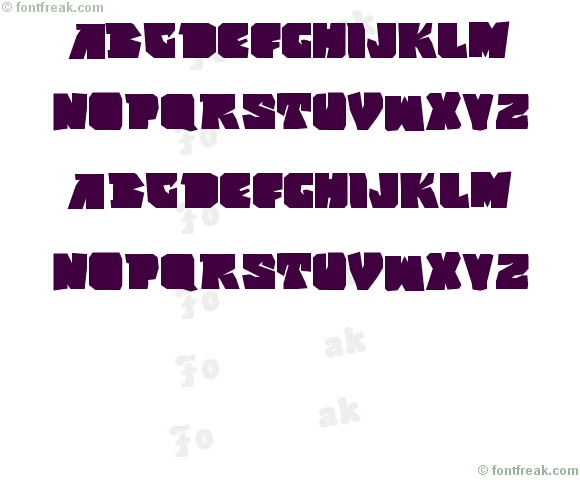
vtks super
The vtks super font, designed by Douglas Vitkauskas, is a striking display typeface that stands out with its bold and modern aesthetic. This sans-serif font features a unique geometric structure, characterized by thick strokes and minimal contrast, which lends it a contemporary feel. The uniform spacing between characters enhances readability, making it suitable for a variety of applications. Its decorative elements add a touch of personality without overwhelming the design, making it a versatile choice for various projects.
Ideal for impactful use cases, vtks super is perfect for creating eye-catching movie posters, trendy restaurant menus, and dynamic branding materials. Graphic designers will appreciate its ability to convey a strong message while maintaining a stylish appearance. Small business owners can utilize this font for promotional materials, capturing the attention of potential customers with its modern flair. Content creators looking to elevate their visual storytelling will find it a compelling choice for social media graphics and website headers.
The target audience for this font includes graphic designers, small business owners, and content creators who seek a distinctive typeface that enhances their visual identity. Its freeware license allows users to incorporate it freely into their projects, making it an accessible option for anyone looking to add a modern touch to their designs.
What truly sets the vtks super font apart is its balance of boldness and elegance. This font not only makes a statement but also retains a level of sophistication that is hard to find in many display typefaces. For those searching for a standout option, the vtks super font free download is an excellent choice that will elevate any design project.